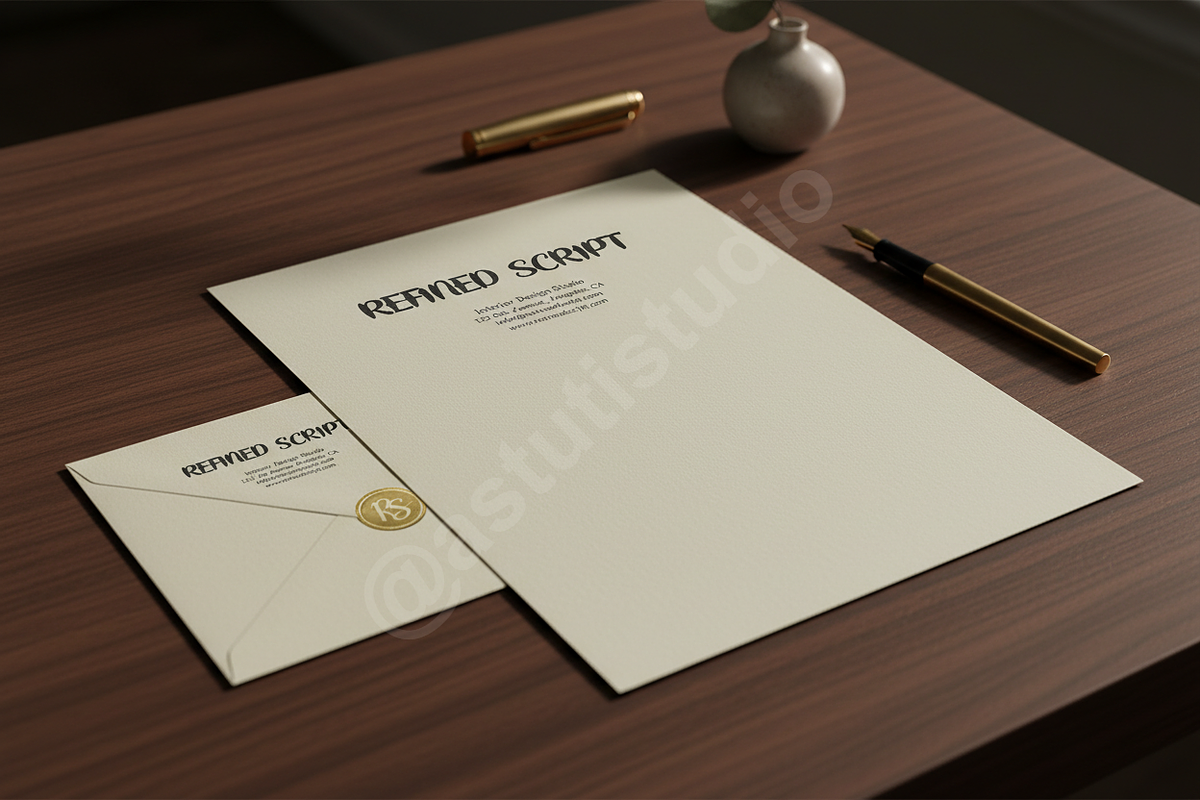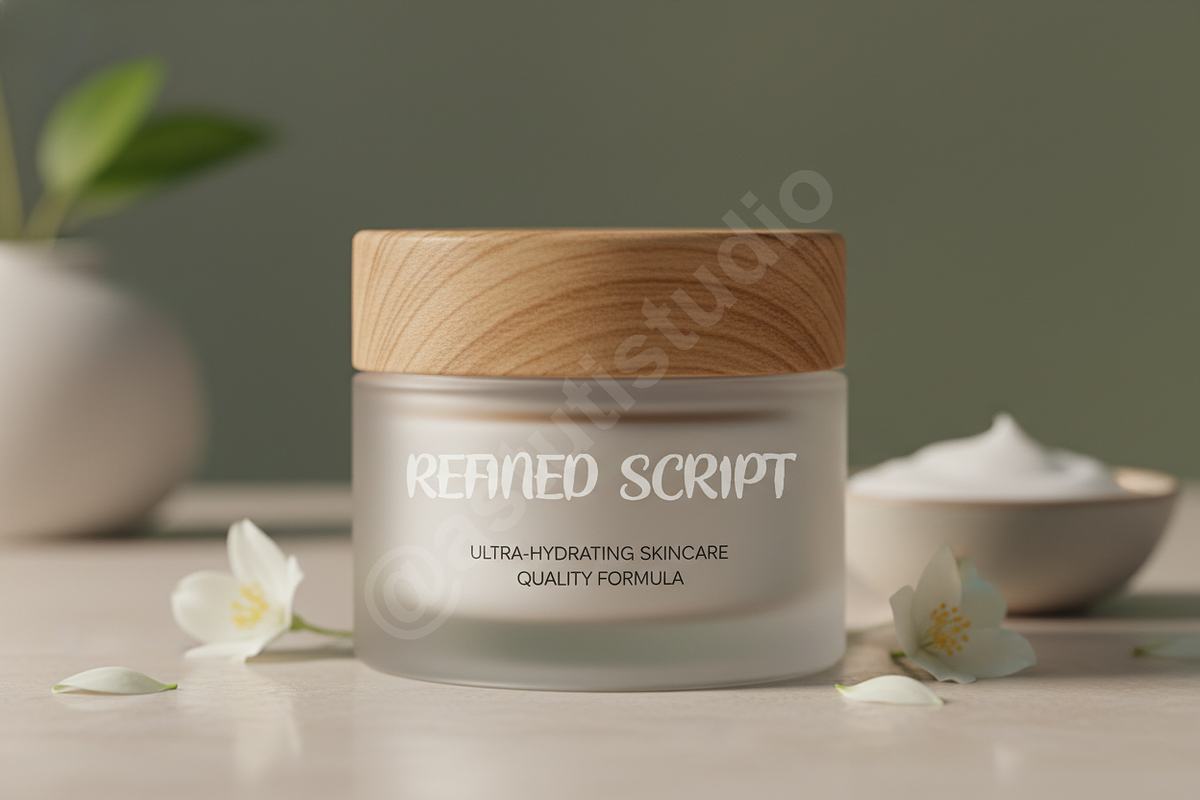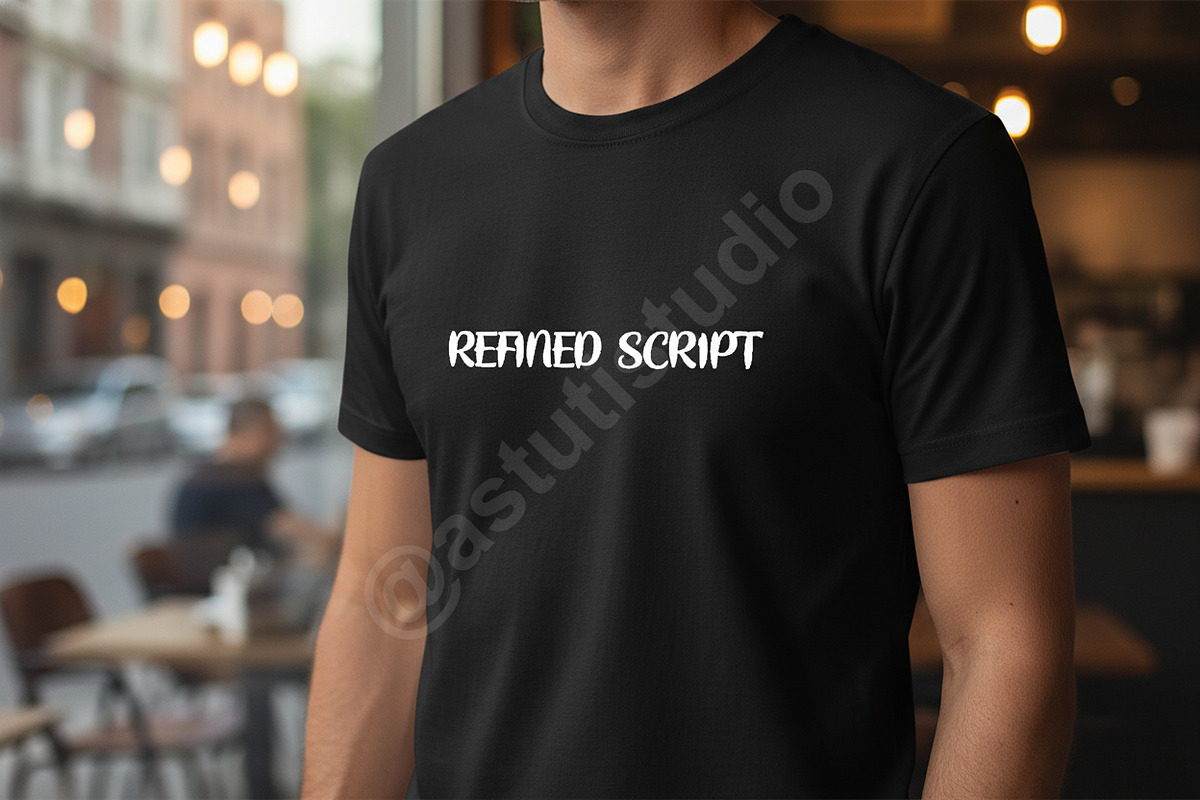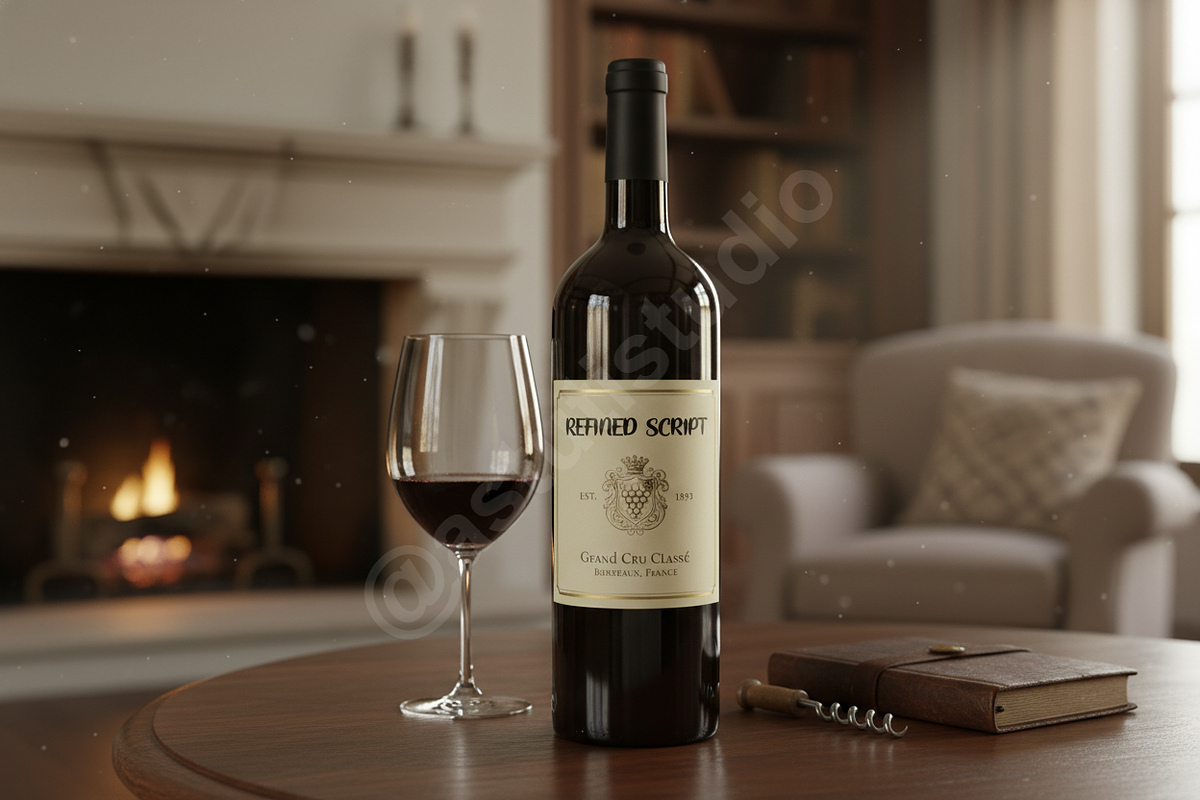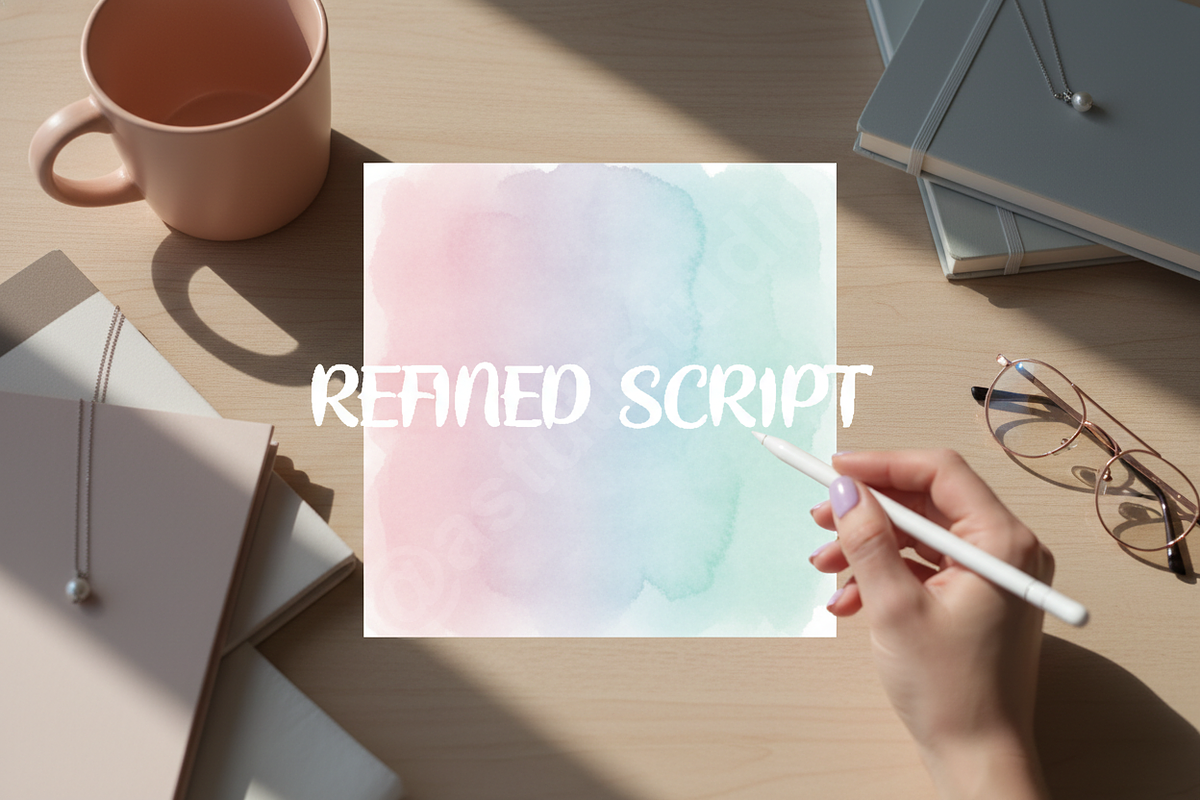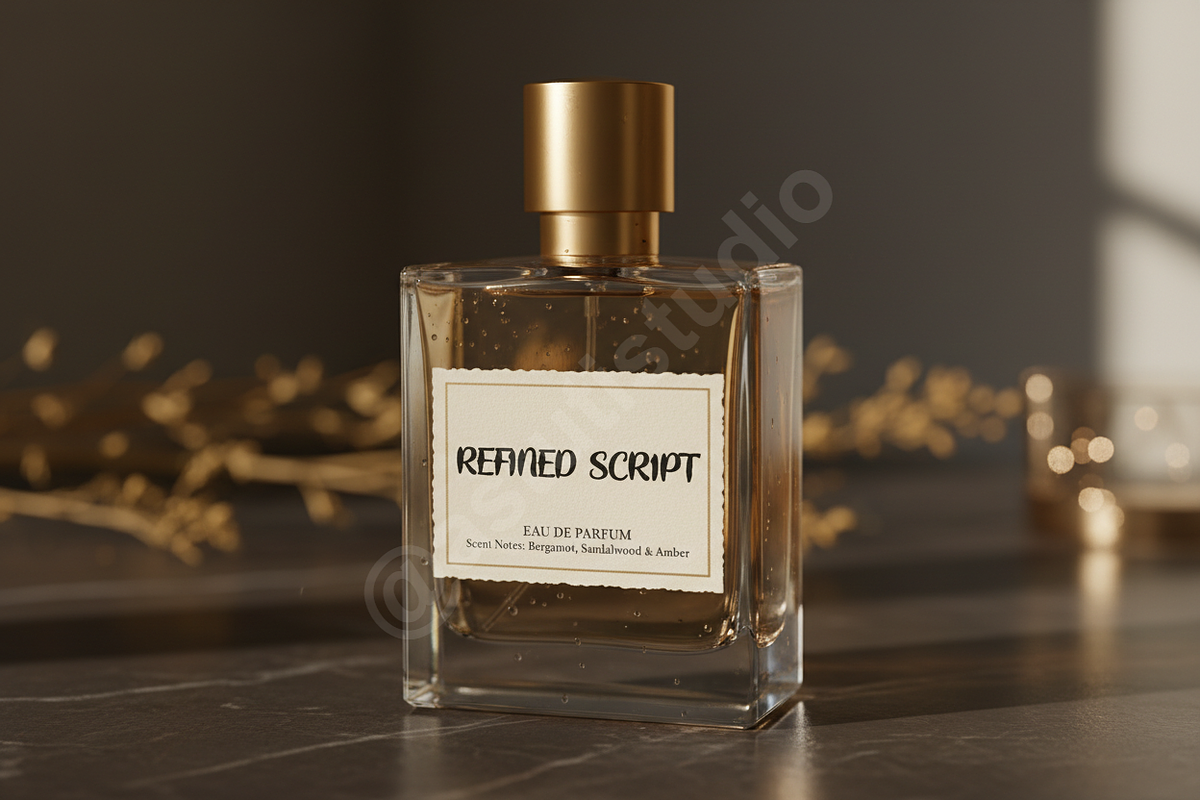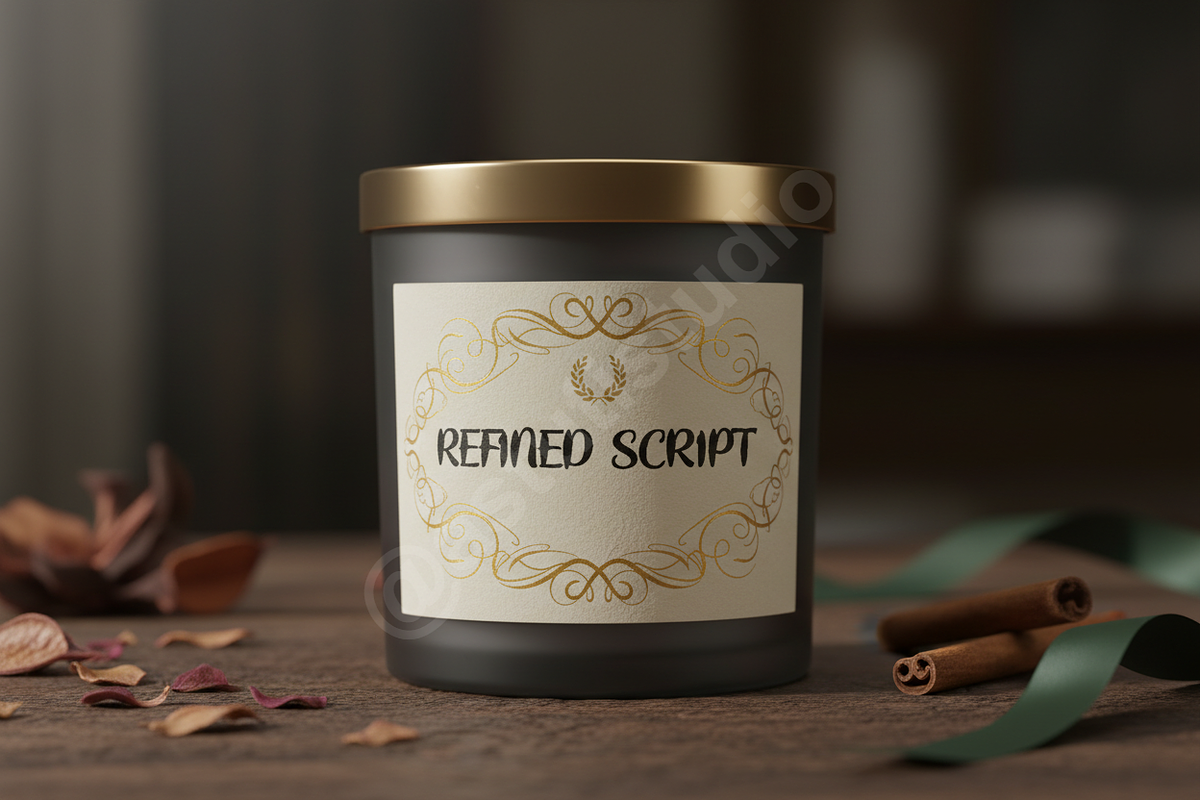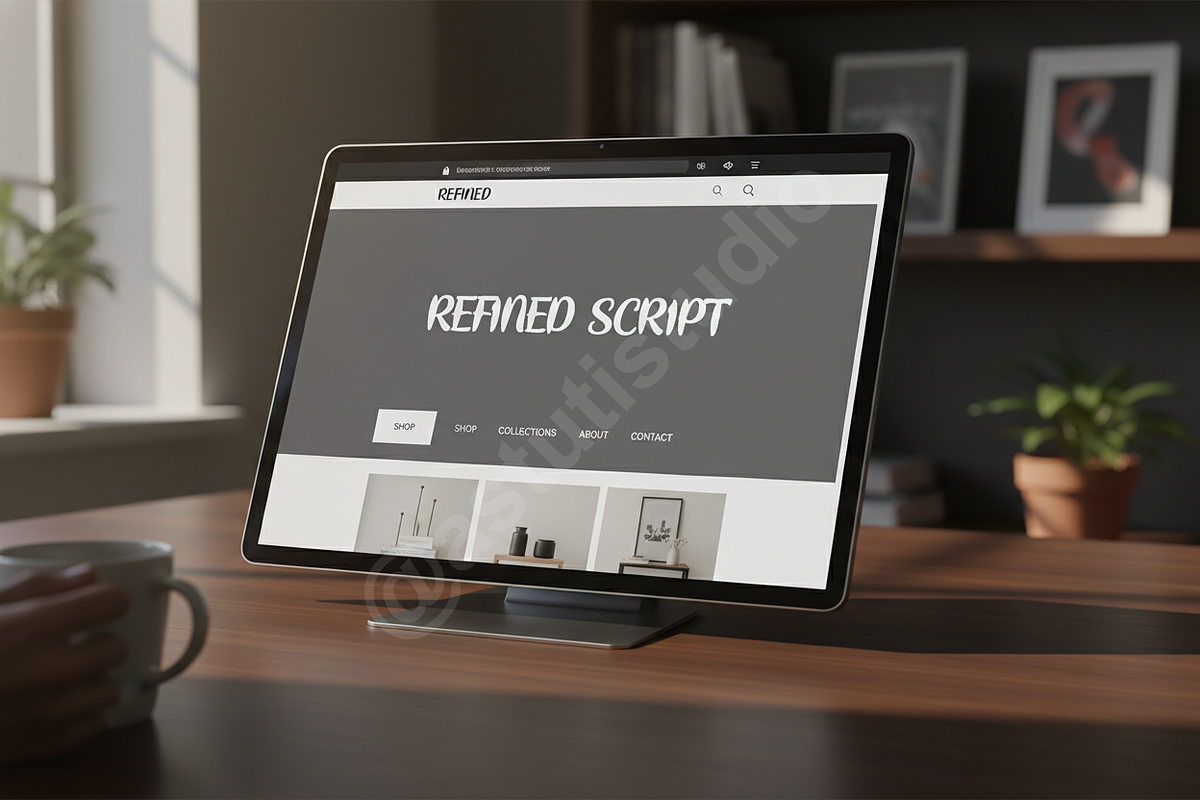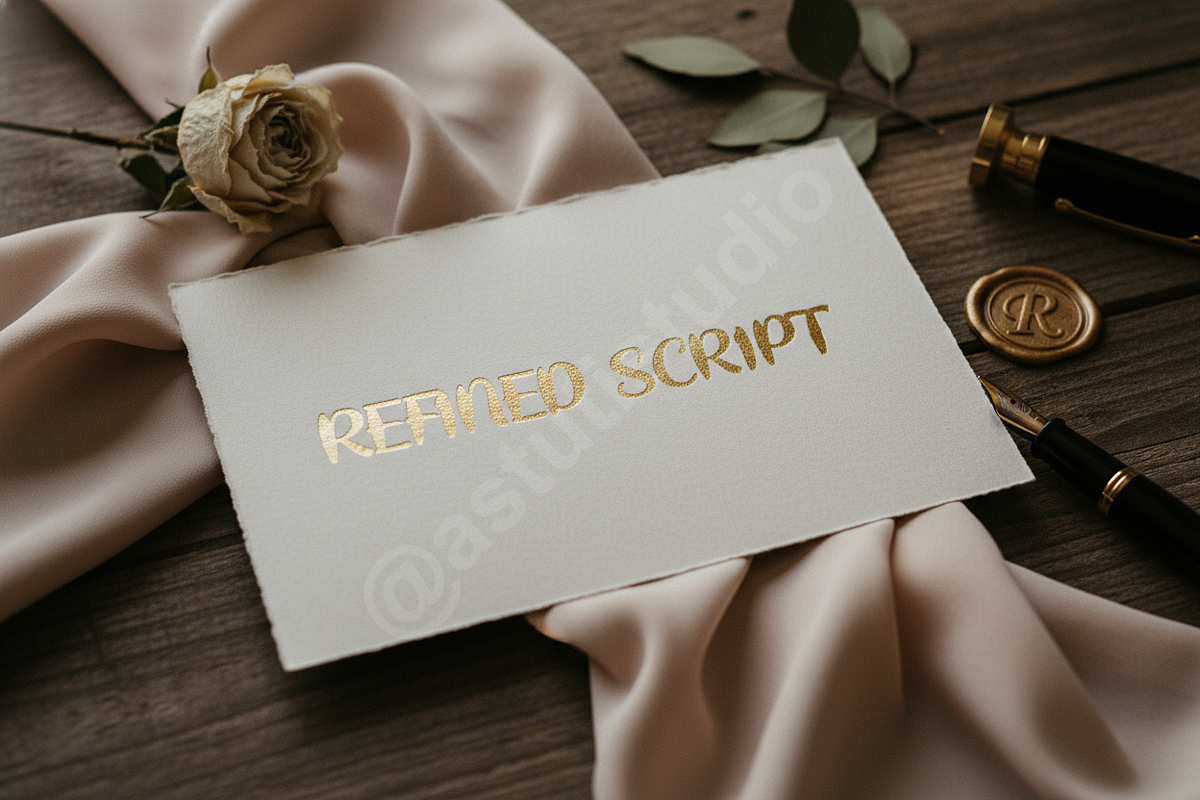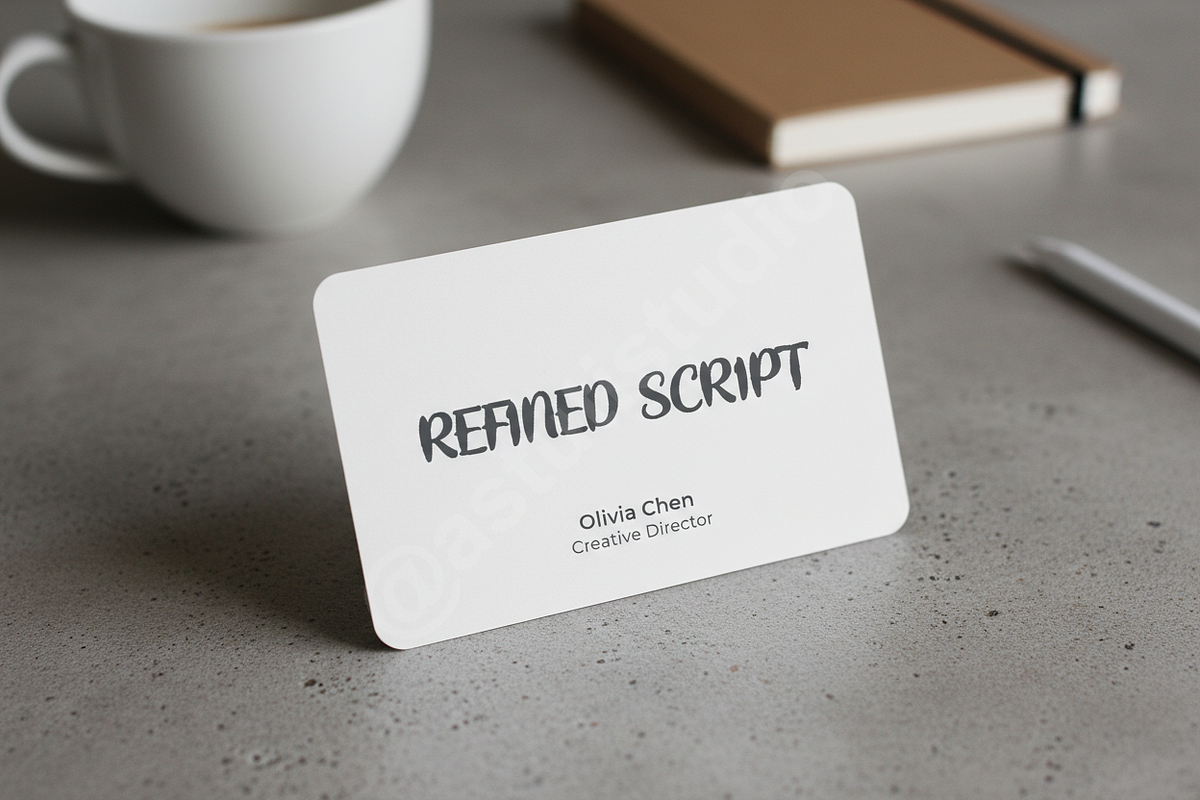
Hidawi | Sophisticated Modern Serif
Introduction Hidawi is a premium serif font meticulously crafted for high-end aesthetics and timeless appeal. Characterized by its refined proportions and graceful curves, it brings an air of effortless luxury to any creative project. Whether you are building a boutique brand identity or designing a high-fashion editorial, Hidawi provides the perfect balance of classic structure and modern flair.
- Clean, elegant letterforms with high contrast
- Optimized for both display and body text
- Precision kerning for a balanced, professional look
- Specifically designed for luxury branding, editorial layouts, and high-impact social media